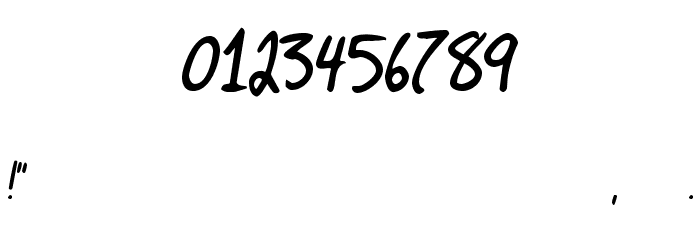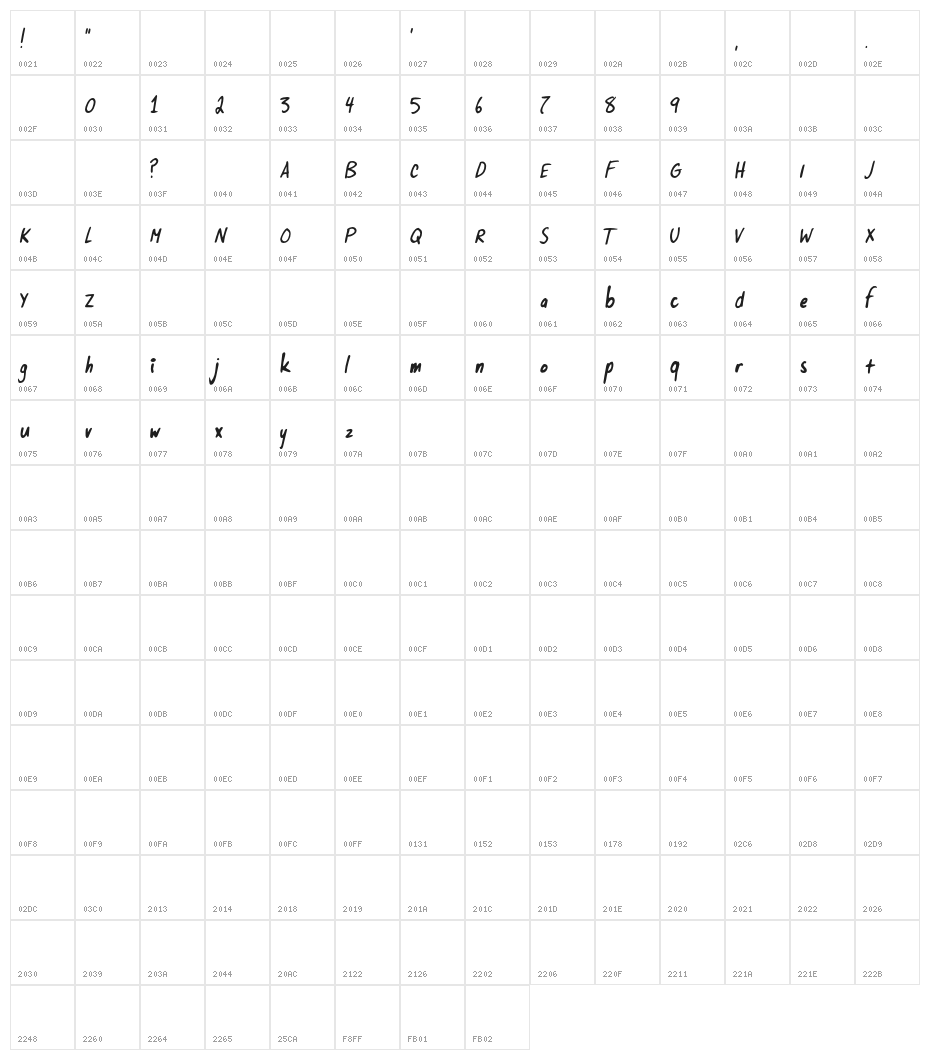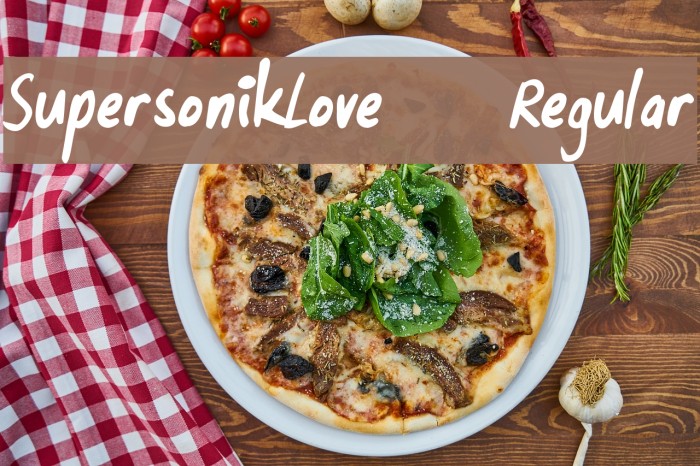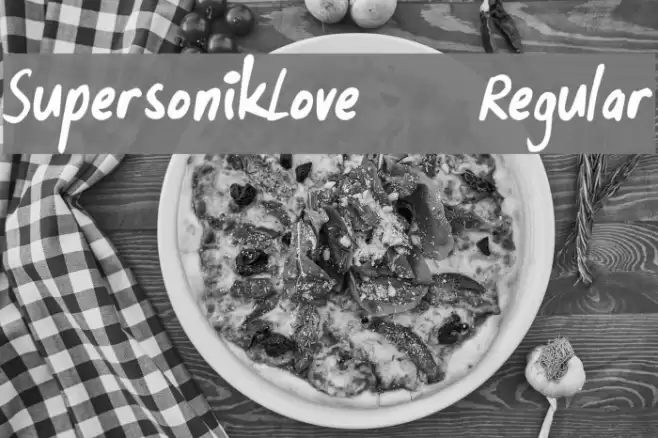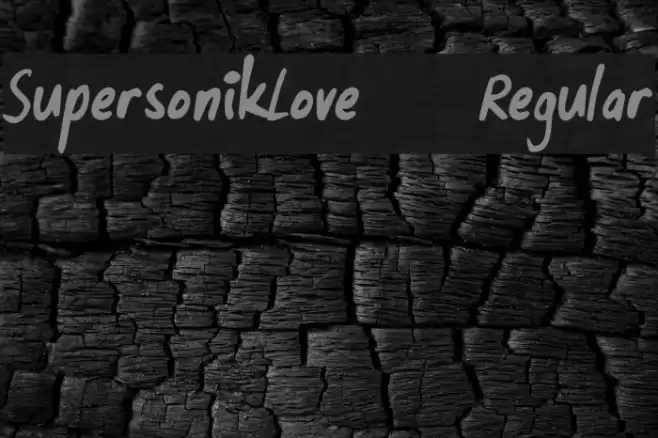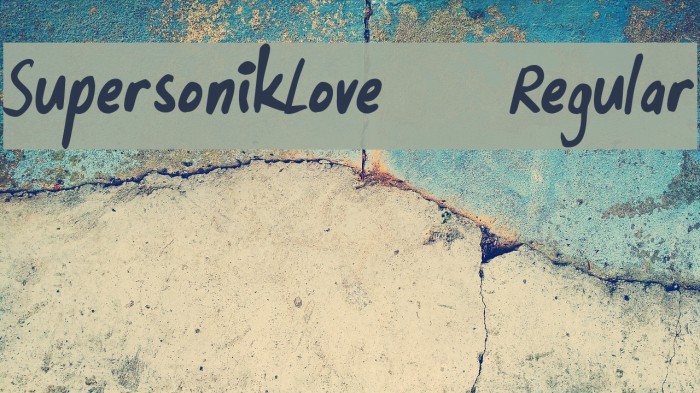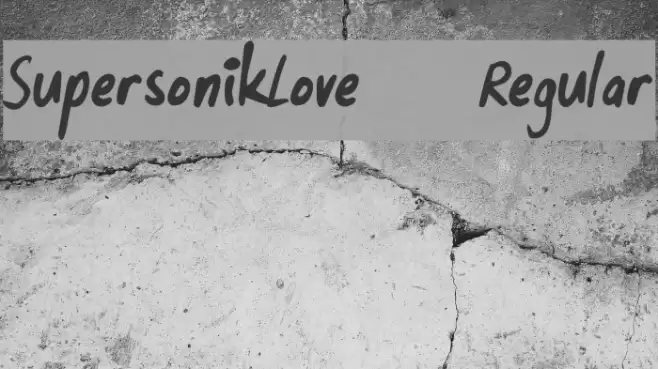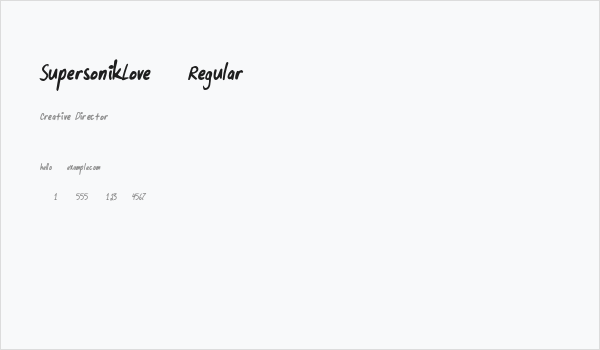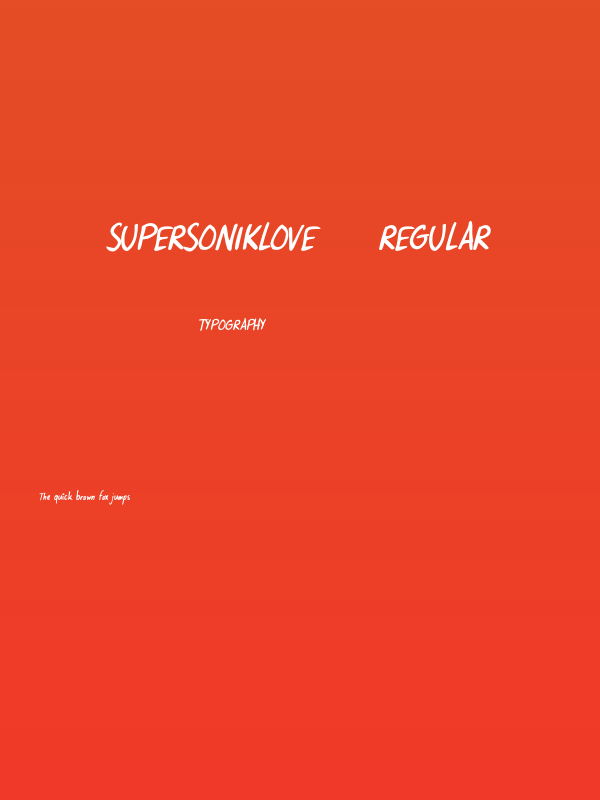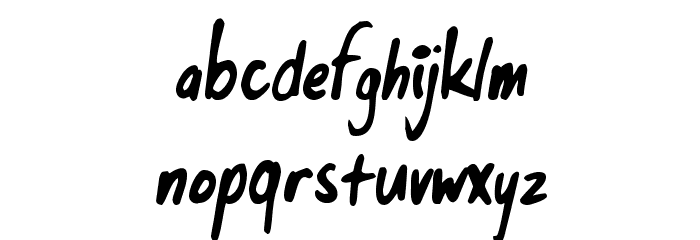
SupersonikLove-Regular Font
SupersonikLove-Regular Description
This font features a playful and energetic handwritten style, characterized by its dynamic and slightly slanted letterforms. The strokes are smooth and fluid, giving it a casual and approachable feel. The uppercase letters are bold and prominent, while the lowercase letters maintain a consistent flow, enhancing readability. The numerals are clear and well-defined, matching the overall style. Special characters are integrated seamlessly, maintaining the font's cohesive appearance. This font exudes a sense of fun and creativity, making it suitable for projects that require a personal touch.
| Use Case | Logos, Headlines, Social Media |
| Proposed Projects | Ideal for greeting cards, invitations, playful branding, and social media graphics. |